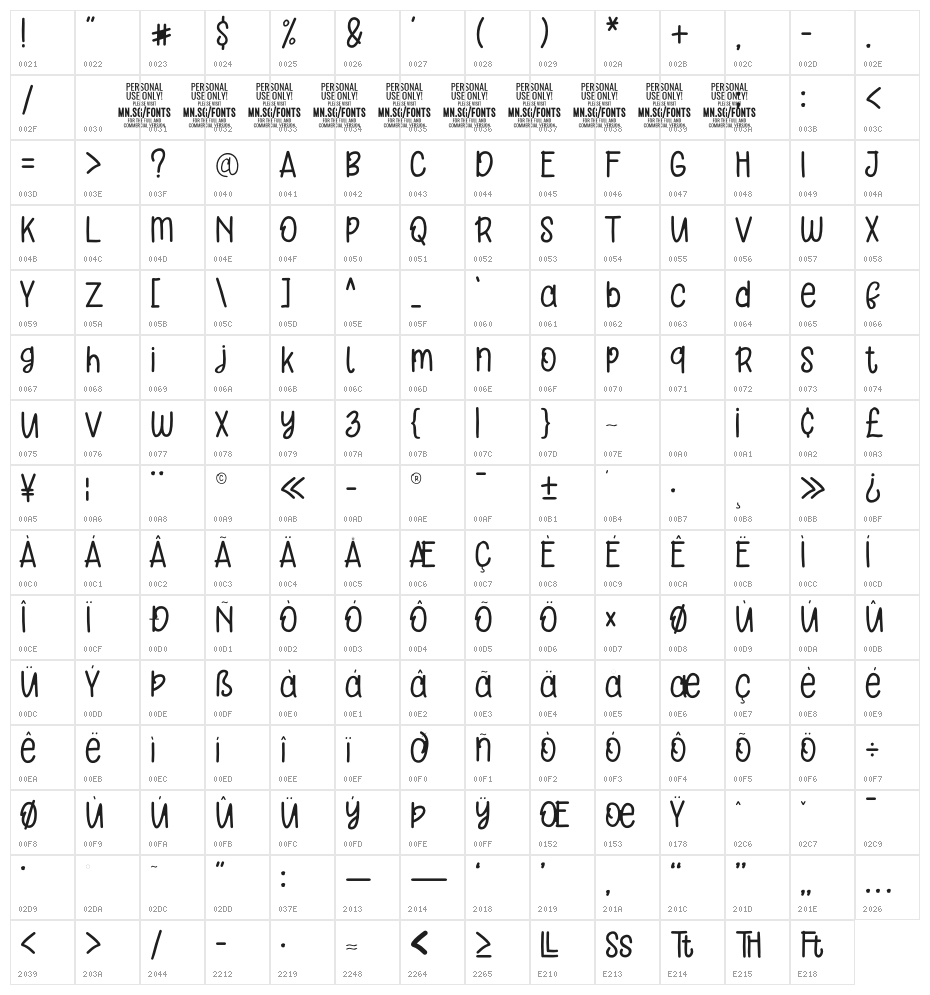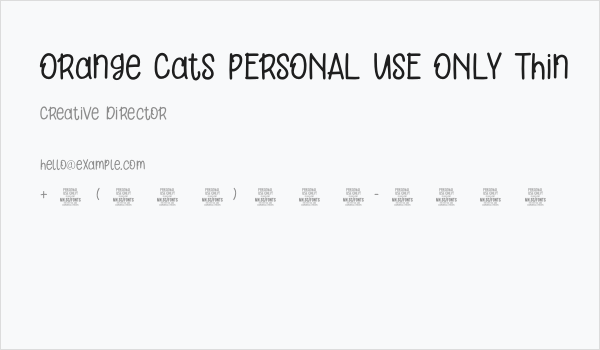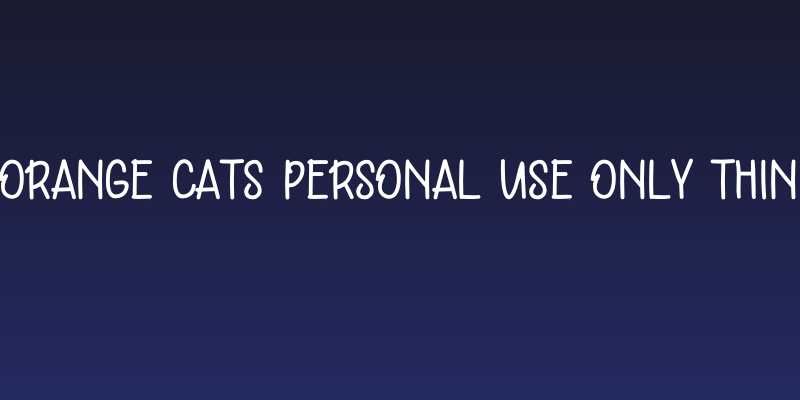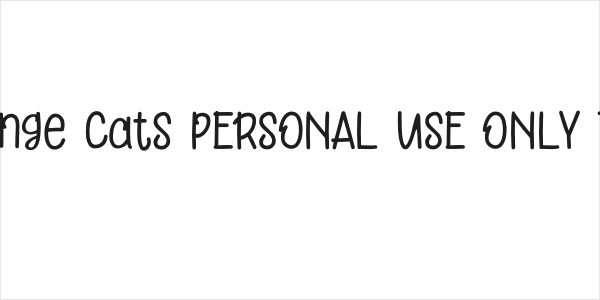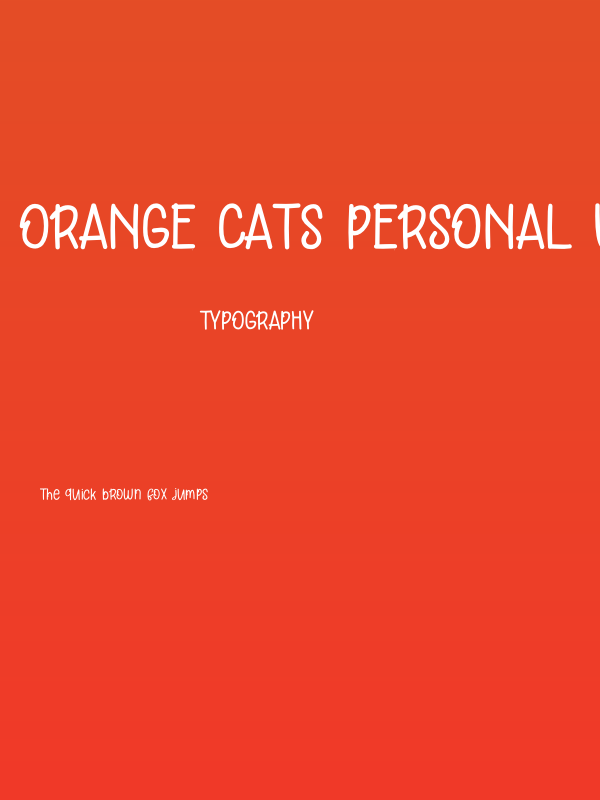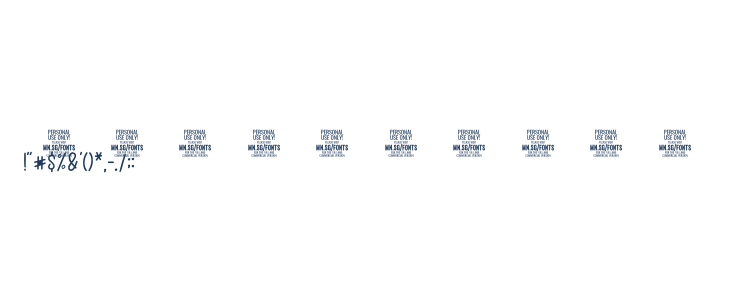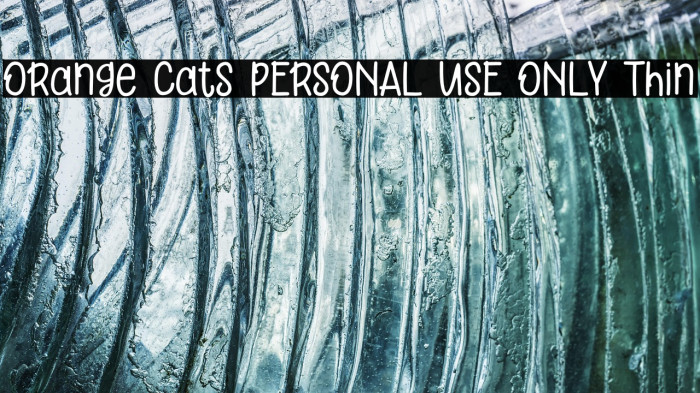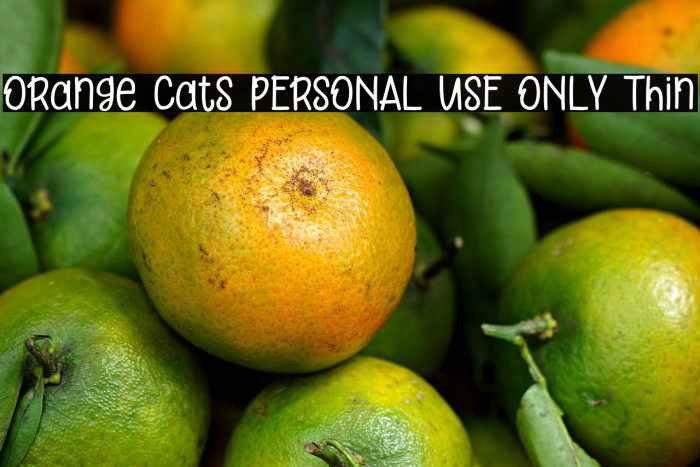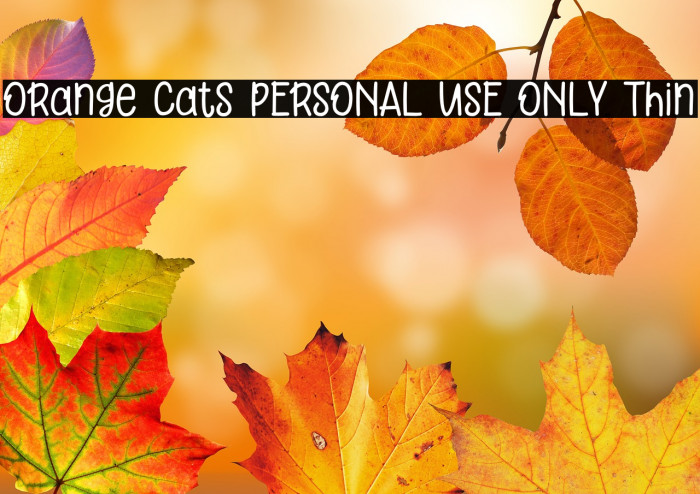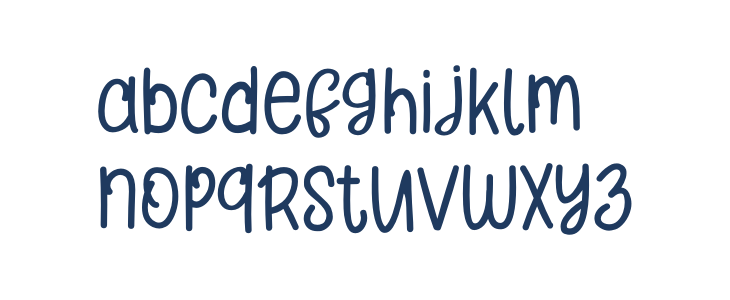
Orange Cats PERSONAL USE ONLY Thin Font
Orange Cats PERSONAL USE ONLY Thin Description
This playful and whimsical font features a handwritten style with a casual and friendly appearance. The characters are slightly rounded with a consistent stroke width, giving it a uniform look. The uppercase letters are bold and prominent, while the lowercase letters maintain a similar style with a slightly more relaxed form. The numbers and special characters are designed to match the overall aesthetic, making it versatile for various uses. Its informal and approachable design makes it ideal for projects that require a personal touch.
| Proposed Projects | Ideal for greeting cards, children's books, playful branding, and social media graphics. |